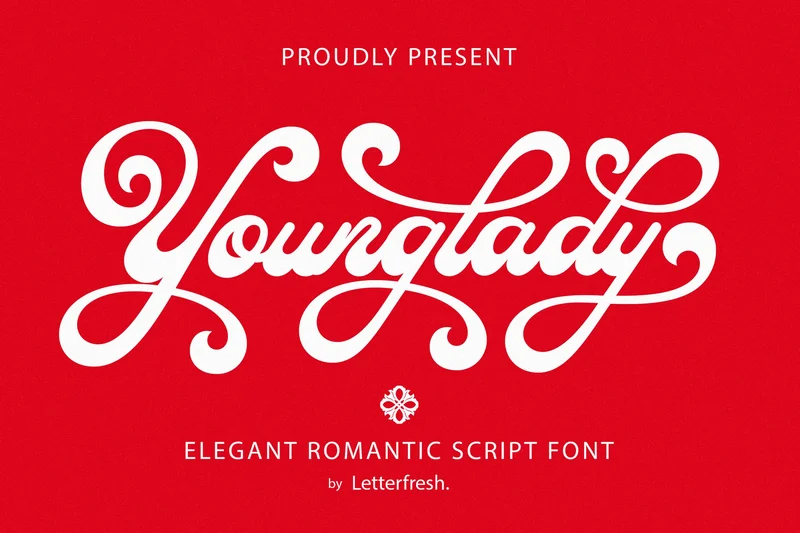
Younglady Script
Younglady Script is a casual rounded script font. Perfect for branding, wedding invitations, photography, neon signs, bloggers, logos, greeting cards, logotypes, quotes, and more.
Font Features: